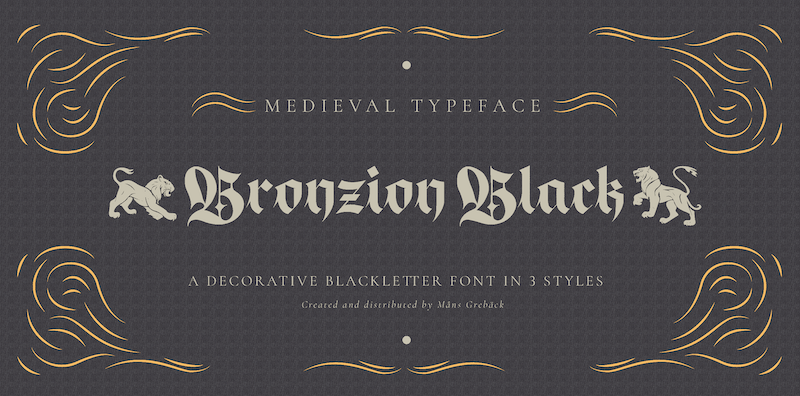
Free download Bronzion Black Font
NOTE: This font is for PERSONAL USE ONLY! To purchase a commercial license, visit: http://mn.sg/bronzion Black is a heavy blackletter typeface, offering large capitals that are meticulously hand-painted, providing a raw and authentic touch. Use characters 🌲🌳🎠🐂🐅🐆🐈🐉🐎🐕🐦🐯🐲🐺👑👸🗡🤴🦁🦅🦇🦌🦎🦓🦖 to create heraldry-like logos and symbols. Example: Magic🐉Empire For questions, please visit www.mansgreback.com/faq |